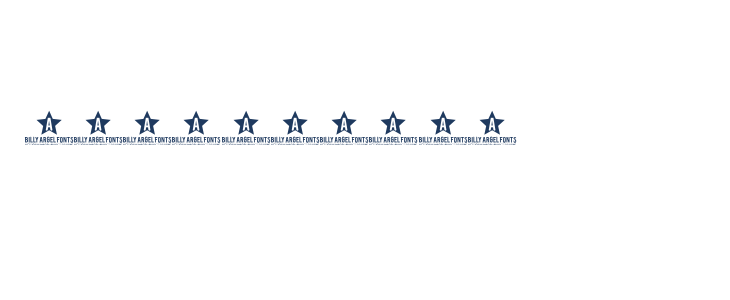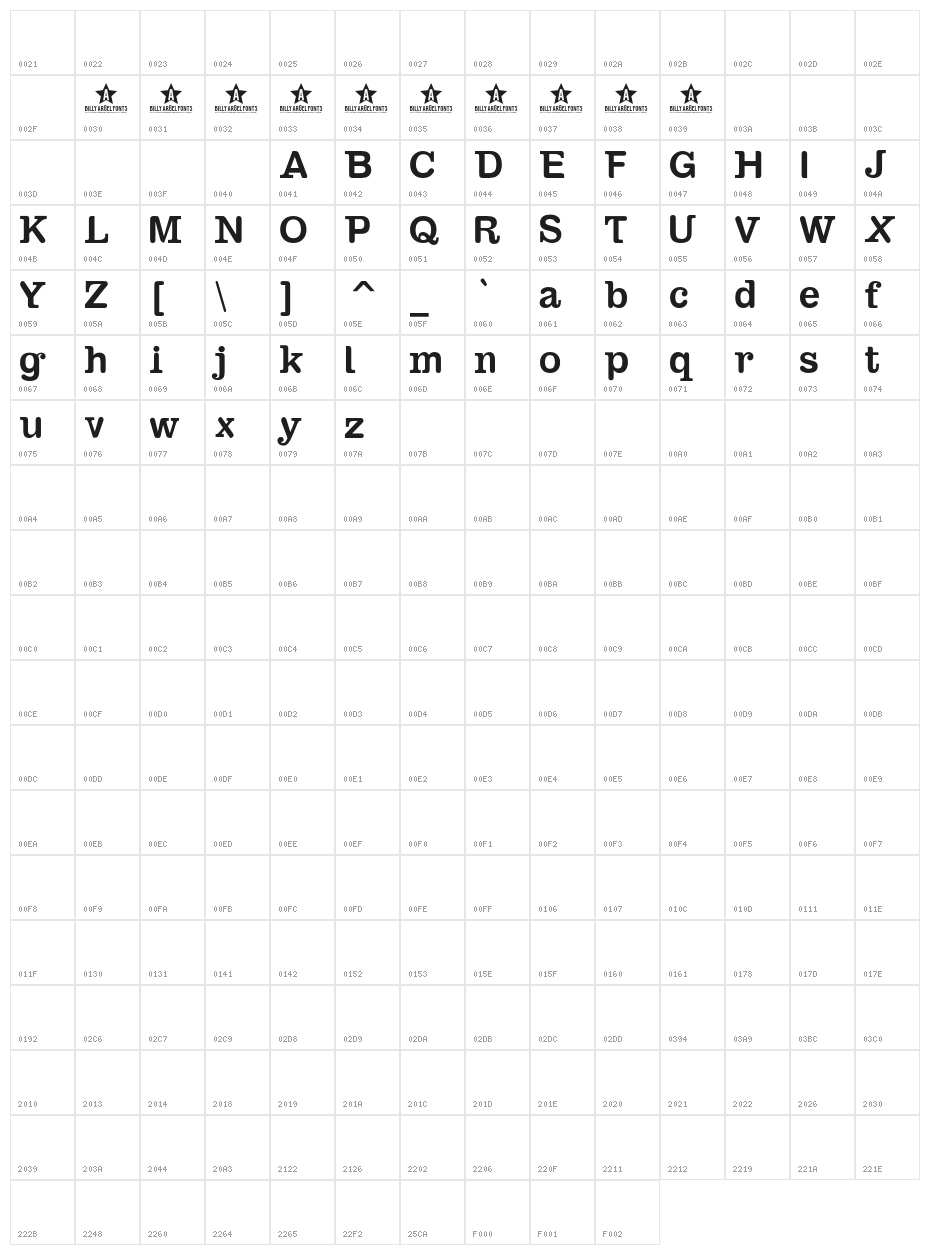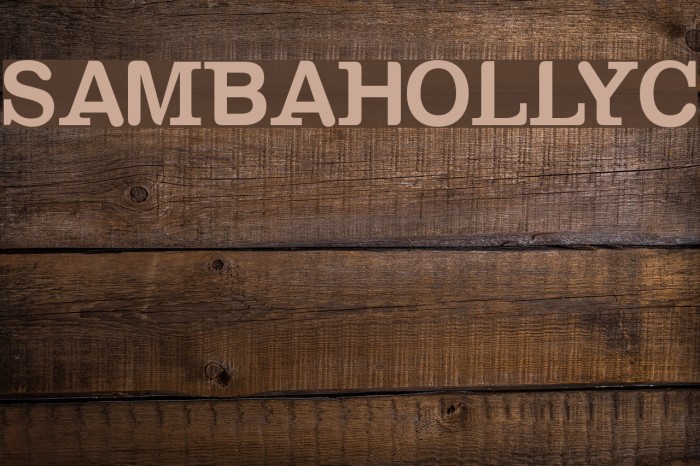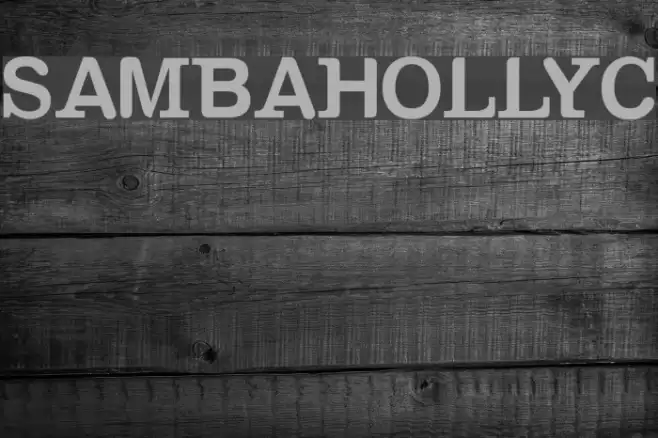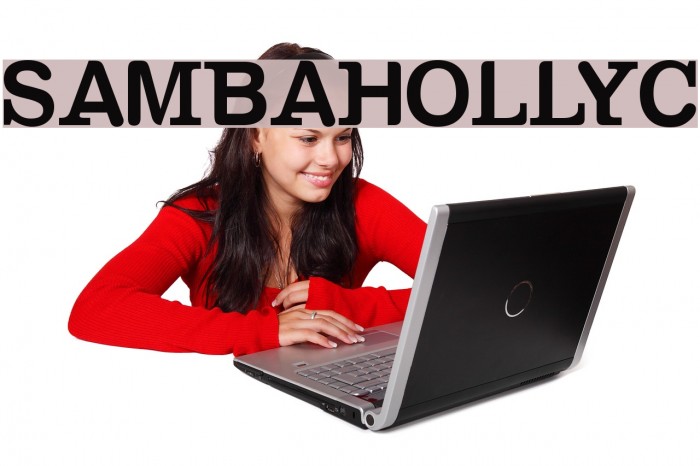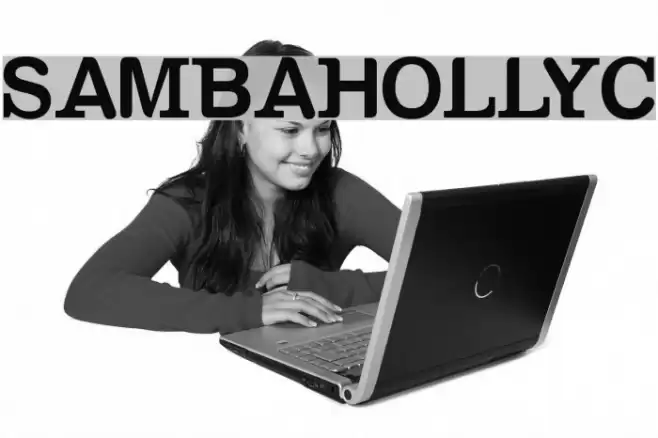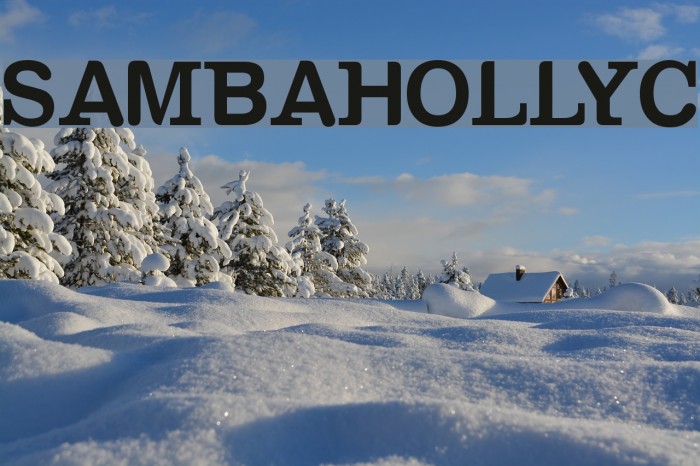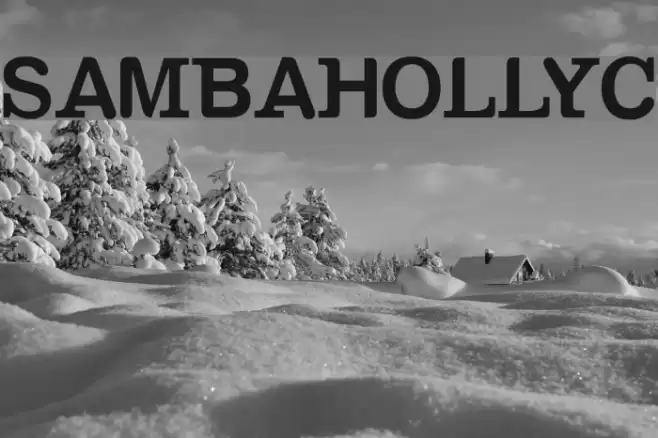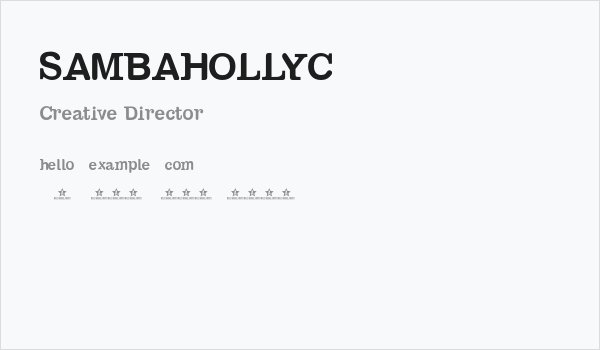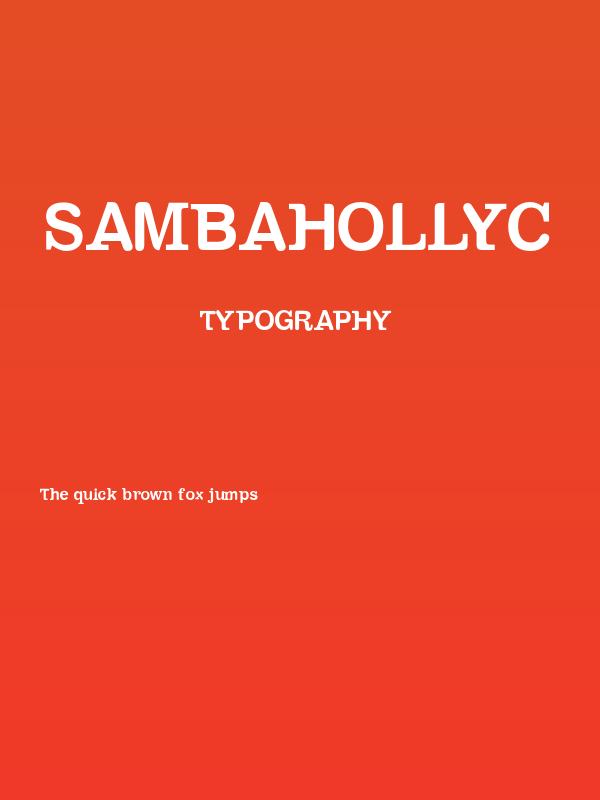
SAMBAHOLLYC Font
SAMBAHOLLYC Description
This font features a bold and playful design with rounded edges and a slightly condensed appearance. The uppercase letters are uniform in height, while the lowercase letters maintain a consistent baseline, providing a harmonious flow. The font exhibits a strong presence with its thick strokes, making it ideal for attention-grabbing headlines. The characters are well-spaced, ensuring readability, and the overall style is reminiscent of a retro or vintage aesthetic. The font's unique charm is enhanced by its decorative elements, making it suitable for creative projects.
| Proposed Projects | Ideal for posters, branding, packaging, and retro-themed designs. |